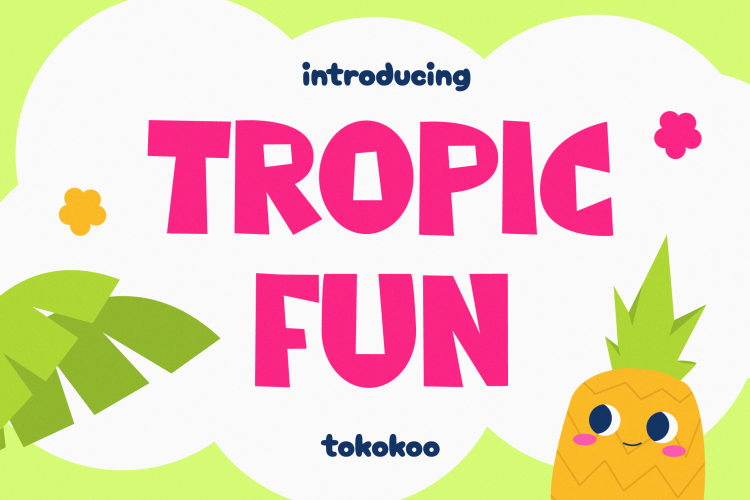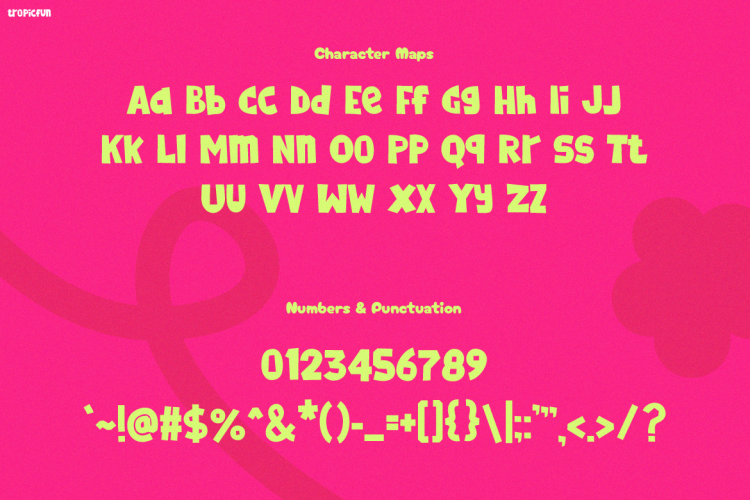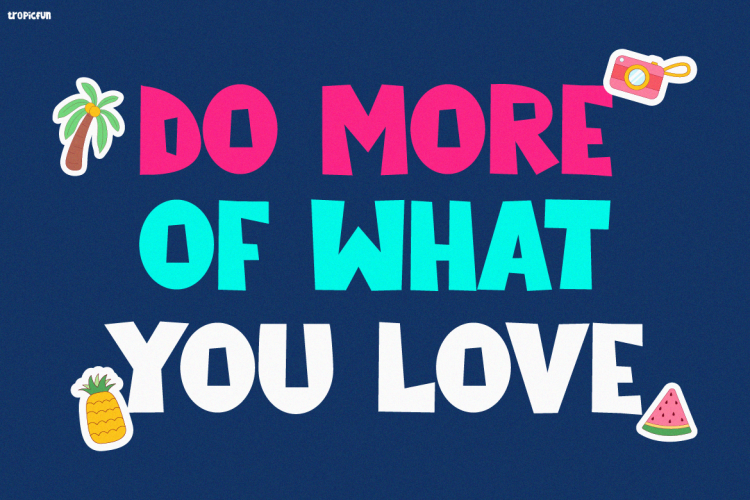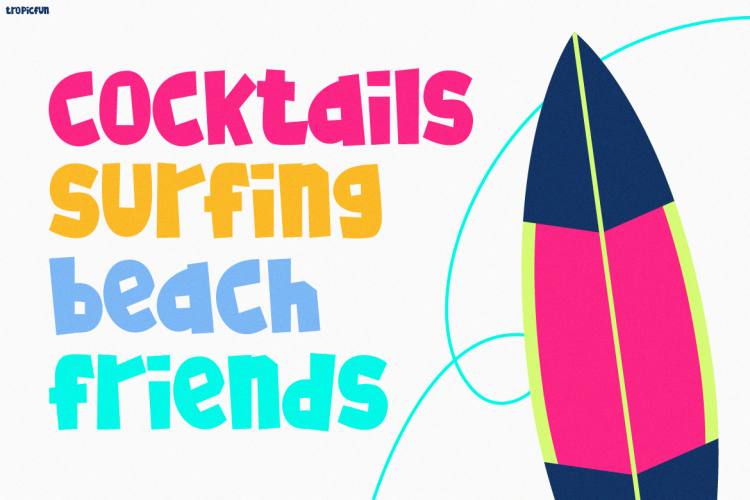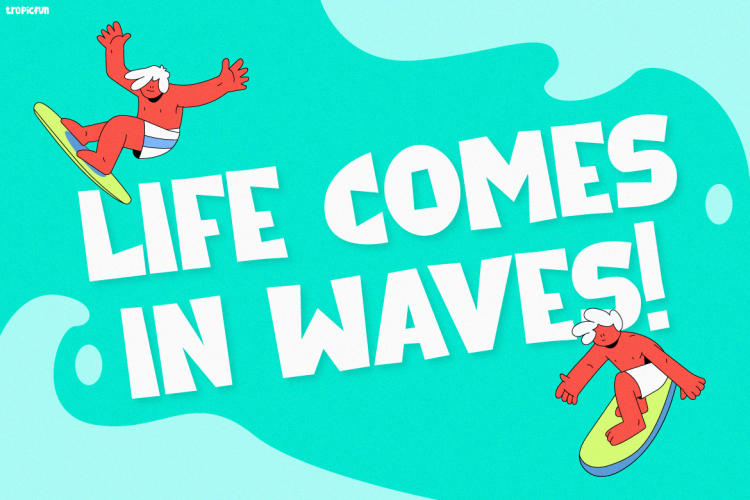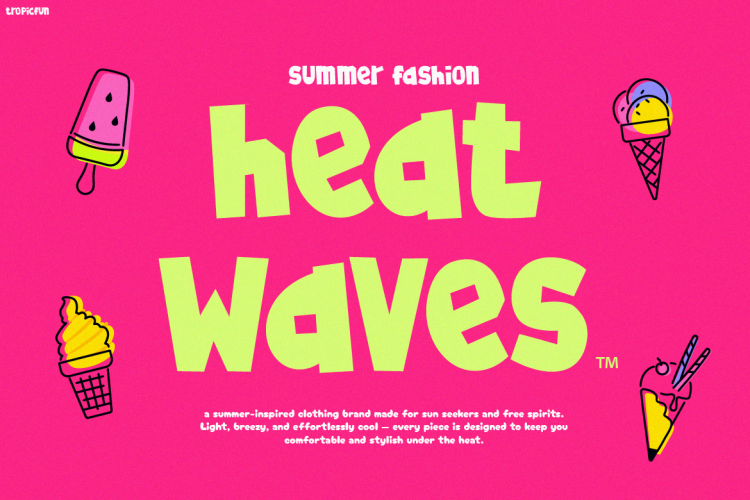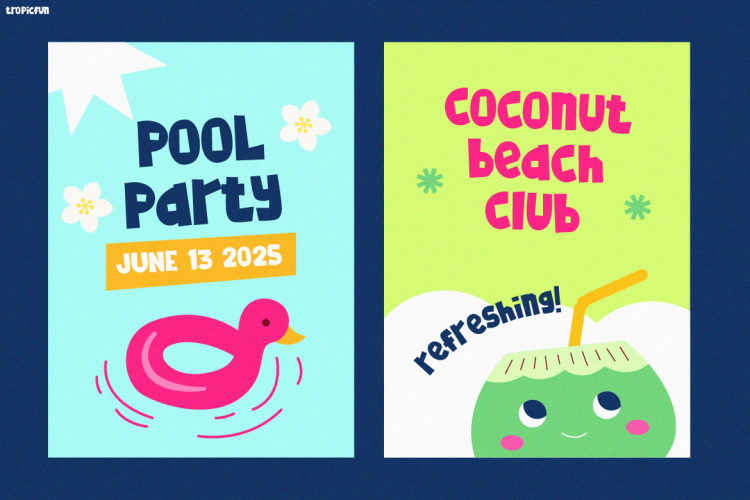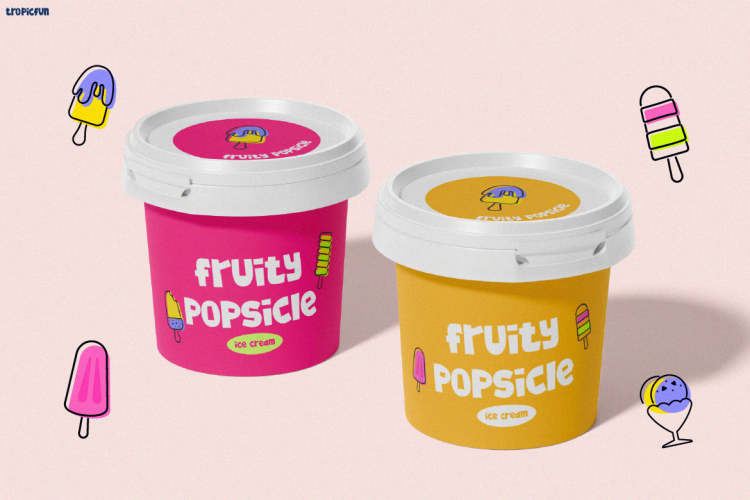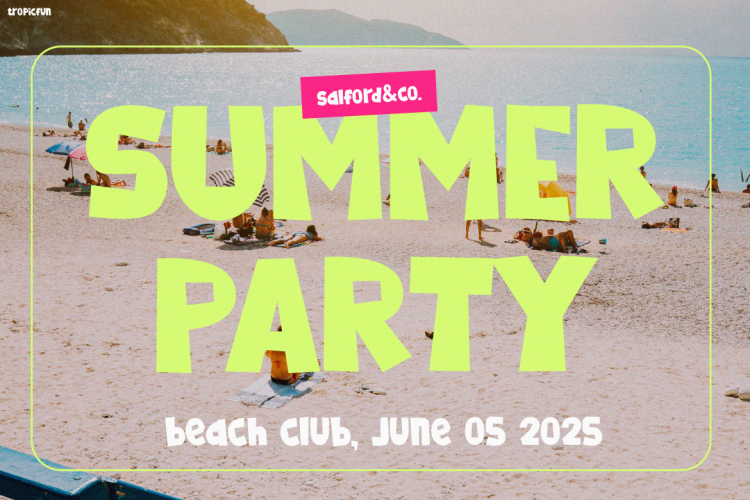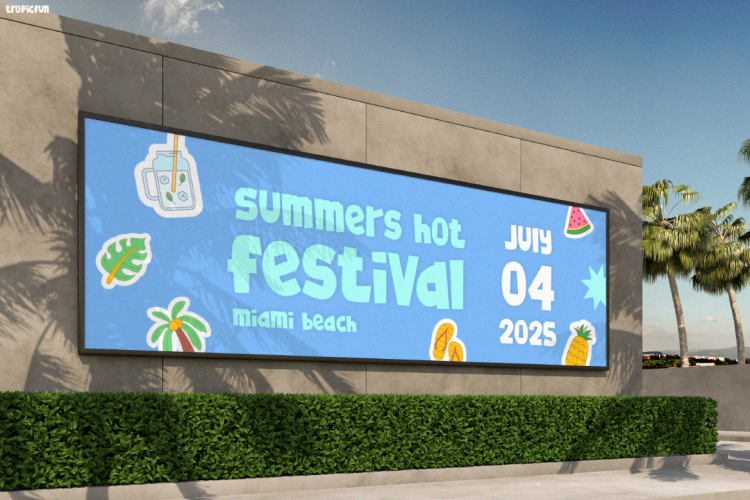
Kids Font Tropicfun โ Where Sunshine Meets Creativity!
Kids Font Tropicfun bursts with pure happiness and endless charm! This playful typeface captures the carefree joy of summer, blending bold shapes and smooth curves that instantly brighten any design. Moreover, every letter feels aliveโbouncy, round, and full of tropical flavor. Inspired by beach days, popsicles, and sunny skies, Tropicfun brings a splash of color and energy to your words. Its unique hand-drawn look gives off a friendly, approachable vibe, while the balanced spacing ensures every message is easy to read and full of personality.
What makes it truly stand out is how it balances fun and functionality. The chunky yet soft letterforms make your text pop with energy, yet remain beautifully legible across posters, packaging, and social media. In addition, its cheerful design captures attention immediately and keeps the viewer engaged. From the vibrant โheat wavesโ headline to the adorable โfruity popsicleโ tubs, every use of Tropicfun feels refreshing and full of life. Therefore, itโs not just a fontโitโs a feeling, a smile, and a joyful burst of creativity that transforms words into a tropical celebration.
Kids Font Tropicfun Perfect For :
Kids Font Tropicfun is perfect for dreamers, makers, and designers who love bright, cheerful aesthetics. Whether youโre crafting childrenโs book titles, toy packaging, or summer festival posters, this font effortlessly brings warmth and positivity to your projects. Furthermore, educators can use it to make classroom materials more engaging, while small business owners can elevate their brandsโespecially those focusing on kids, families, or fun summer experiences.
Additionally, Tropicfun works beautifully for social media posts, party invitations, or any visual project that needs a pop of happiness. Itโs especially ideal for ice cream brands, beach cafรฉs, and lifestyle products aiming for a lighthearted, tropical vibe. With its friendly curves and easy readability, your designs will instantly look fun, modern, and approachable.
Turn every project into a burst of joy with Kids Font Tropicfun! Its playful rhythm, tropical inspiration, and vibrant personality will make your designs shine brighter than ever. Furthermore, it encourages creativity, builds emotional connection, and helps your audience feel the warmth of your message. So, why settle for ordinary when you can make your words dance with Tropicfun? Bring out your inner child, spread the sunshine, and let your creativity shine through every letter!